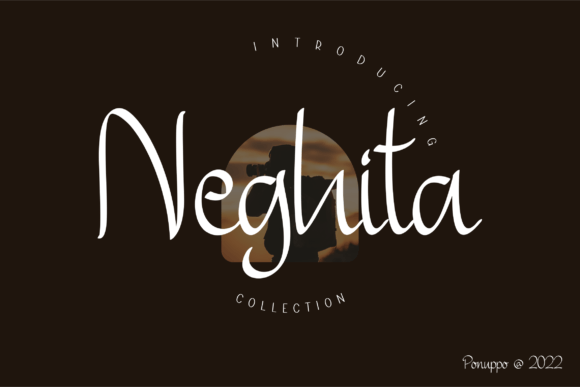
Step into a world of elegance and sophistication with Neghita Font, a script font family crafted to turn your words into a mesmerizing symphony of art. Experience the beauty of handwritten letters that effortlessly dance across the page, creating a visual masterpiece that captivates the hearts of readers.
Embrace Neghita Font's readability and elegance, a harmonious blend that promises a seamless reading experience. The font's distinct bearing adds a touch of refinement to your creations, making it the perfect choice for those seeking a font that exudes both style and substance.
Transform your favorite products into exquisite works of art with Neghita Font. Its enchanting curves and delicate details will breathe new life into your designs, capturing the attention of all who lay their eyes upon them. Let Neghita Font be your muse, inspiring you to create captivating content that leaves a lasting impression.
Whether you're a seasoned designer or just starting your creative journey, Neghita Font is your gateway to a world of boundless possibilities. Its versatility knows no bounds, seamlessly adapting to a wide range of projects, from personal correspondence to professional presentations. Unleash your creativity and witness the transformation as ordinary words morph into captivating expressions of art.
Neghita Font is more than just a font; it's an experience. It's a journey into the realm of aesthetics, where each letter becomes a brushstroke, painting a picture of elegance and grace. Don't settle for ordinary fonts. Choose Neghita Font and embark on a creative odyssey that will leave you breathless.